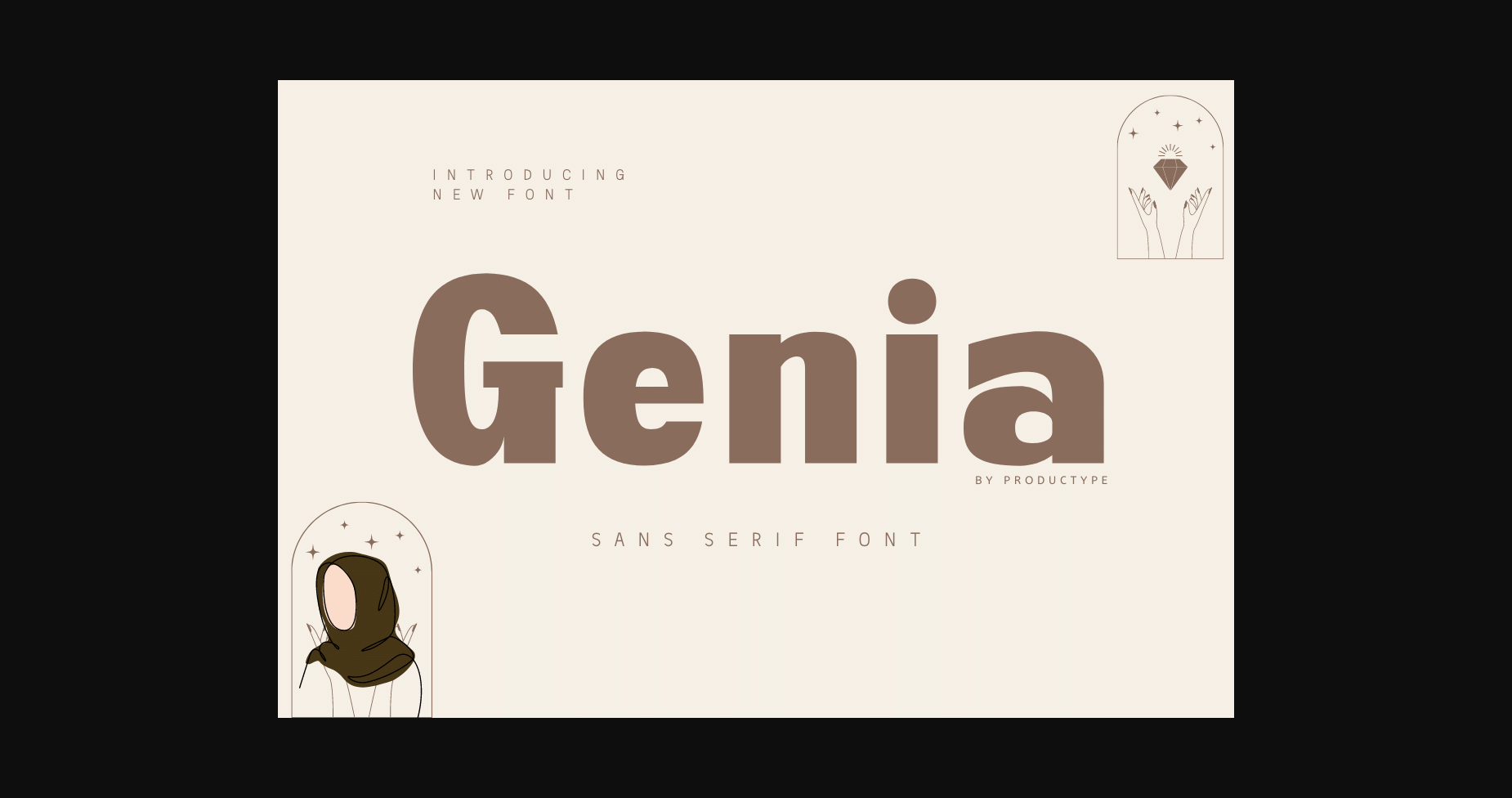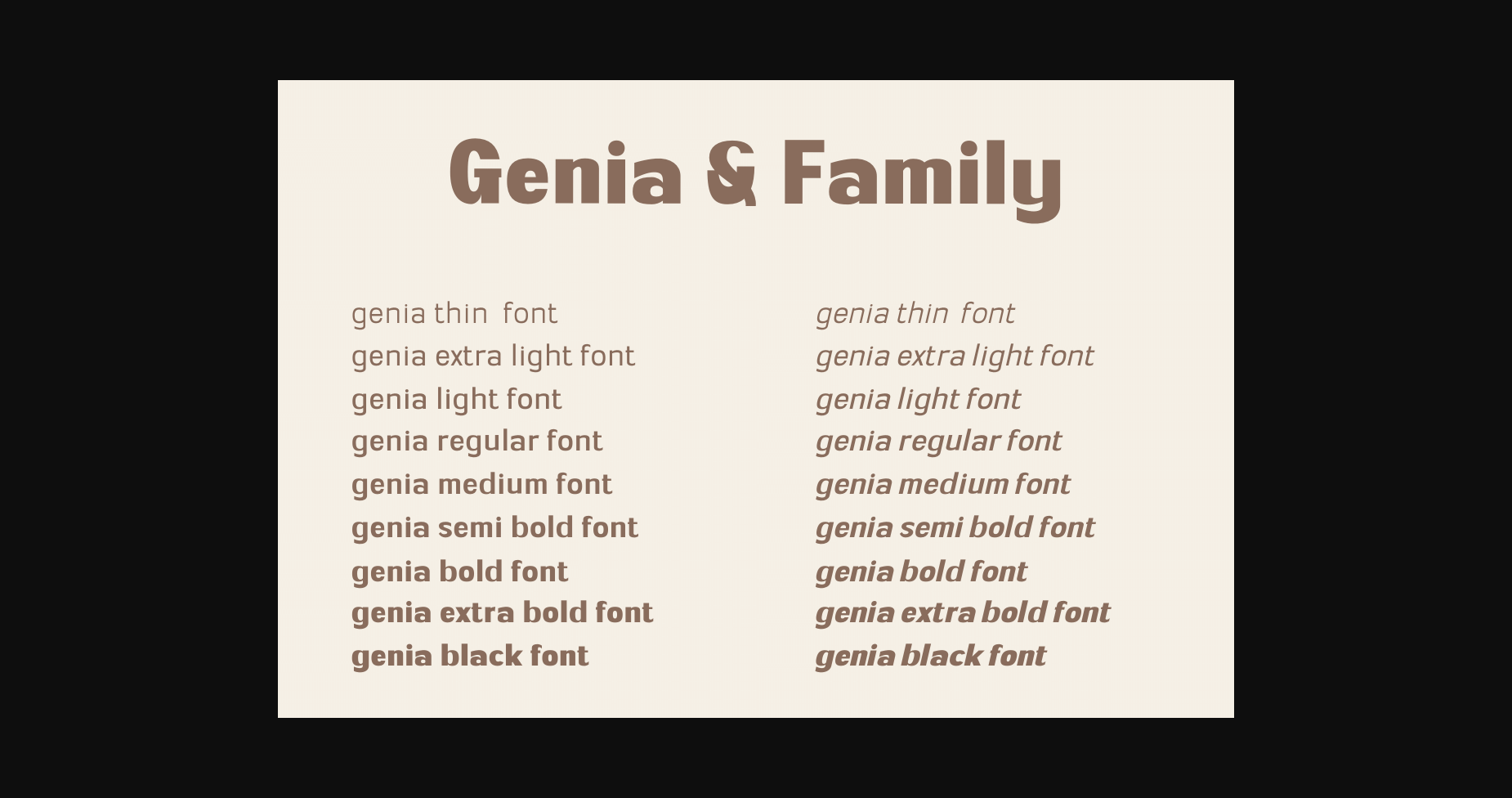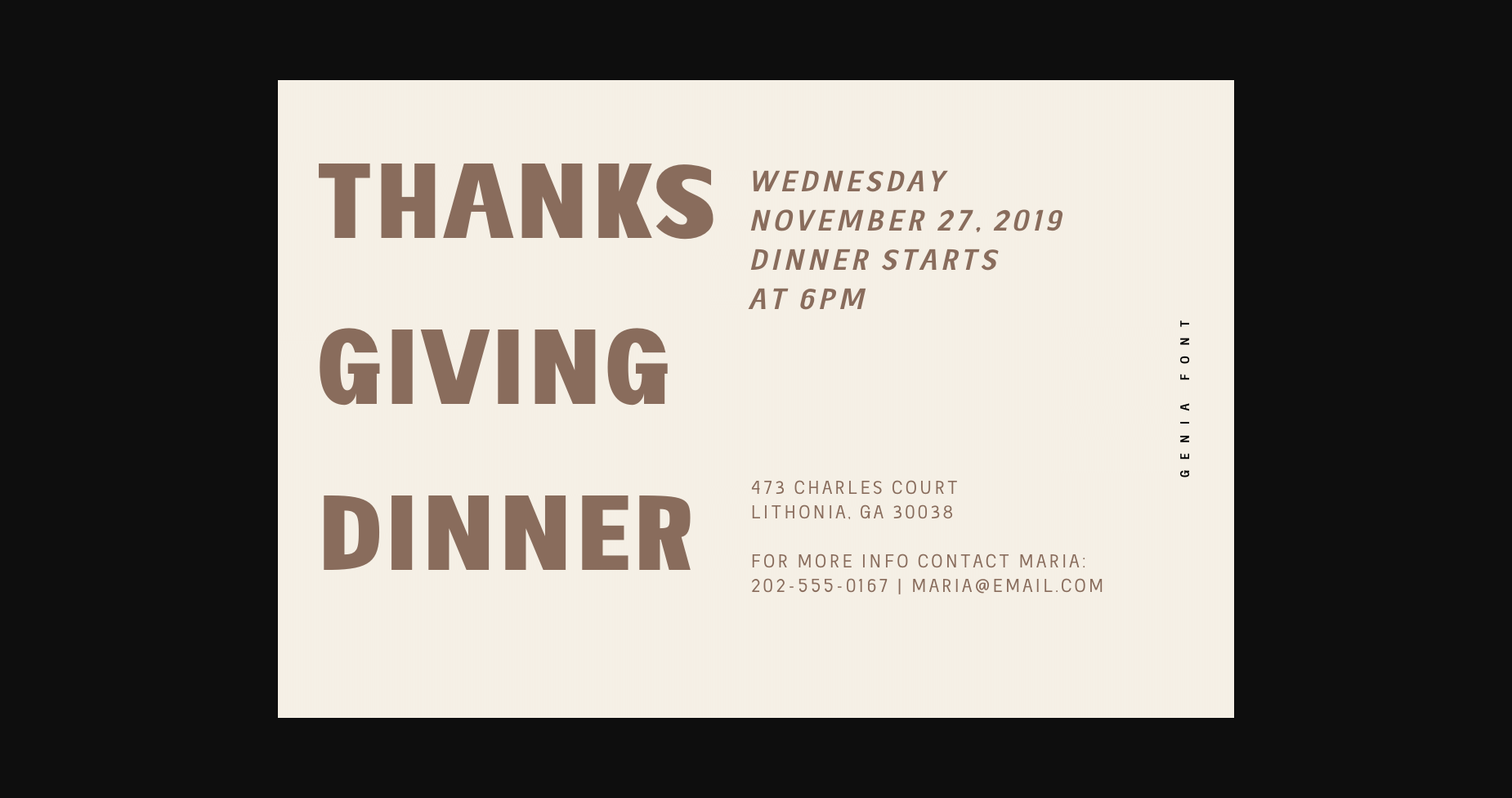
HomeSans Serif FontsGenia Font Sans Serif Fonts Genia Font FacebookXPinterestWhatsApp 1 of 11 ... Genia Font Poster 2... Genia Font Poster 3... Genia Font Poster 4... Genia Font Poster 5... Genia Font Poster 6... Genia Font Poster 7... Genia Font Poster 8... Genia Font Poster 9... Genia Font Poster 10... Genia Font Poster 11... About Genia Font Genia is a modern and bold sans serif font. No matter the topic, this font will be an incredible asset to your fonts’ library, as it has the potential to elevate any creation. DOWNLOAD NOW People also explored Sophia Rastalia Font Just Drink Font Retro Flowers Font Randupit Font Vandent Font Herbert Font Happy Hipster Font Ghost Mystery Font 461 0 TagsGeniaGenia Font Previous articleBreak Sporter FontNext articleNebora Font LEAVE A REPLY Cancel reply Comment: Please enter your comment! Name:* Please enter your name here Email:* You have entered an incorrect email address! Please enter your email address here Website: Save my name, email, and website in this browser for the next time I comment. Personal Use Free Term Free Personal Use Free Read more about this font The Royal Personal Use Free Read more about this font Happy Camping Personal Use Free Read more about this font Strings Personal Use Free Read more about this font BLOG Fonts That Capture the Spirit of New York City New York City is more than just a place—it’s an experience, a rhythm, a visual language... The 10 Best Handwriting Fonts to Add Personality to Your Designs To increase your work productivity, choose the most readable fonts. Transform Your Website: Elevate Your Typography with 7 Best Web Font Generators